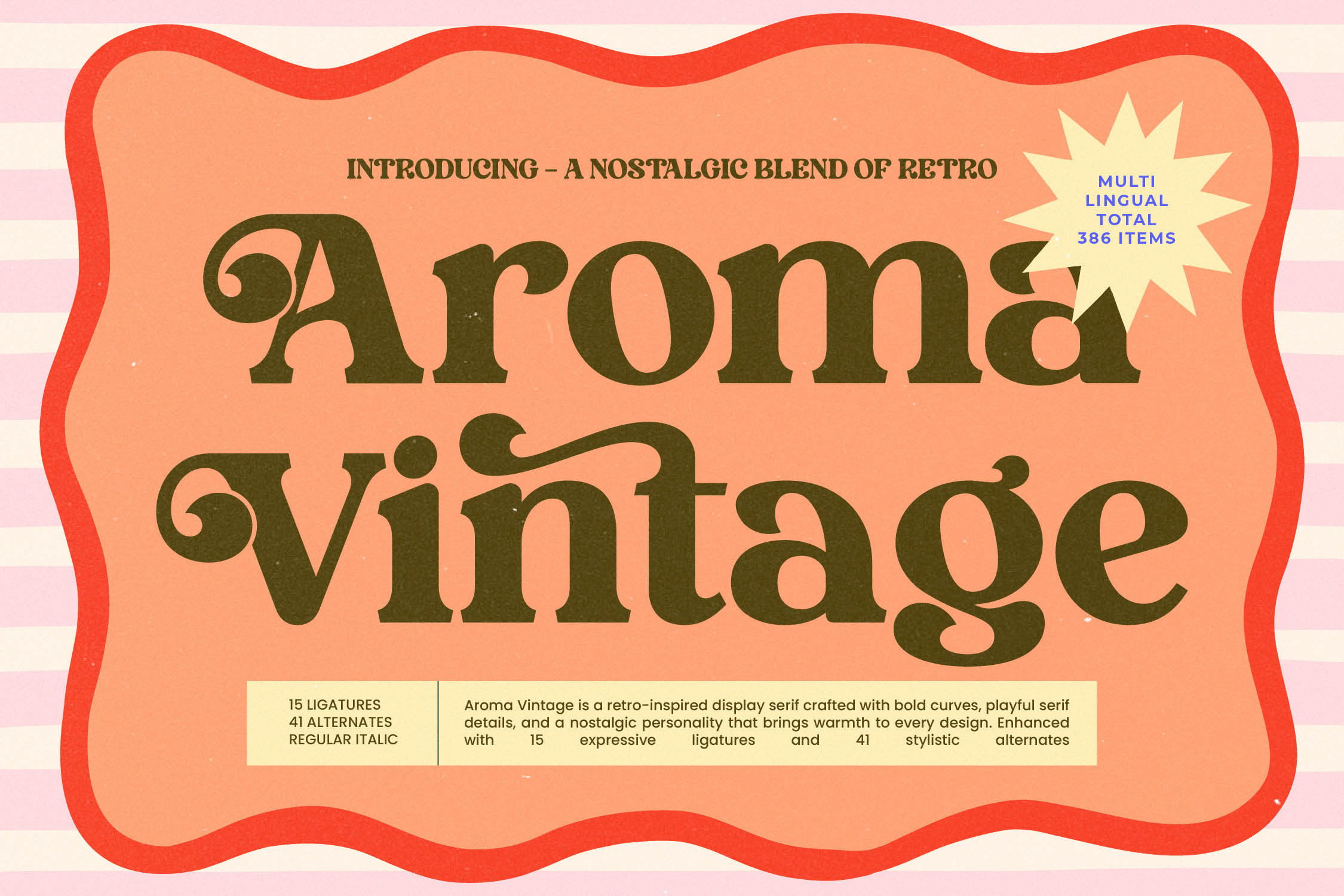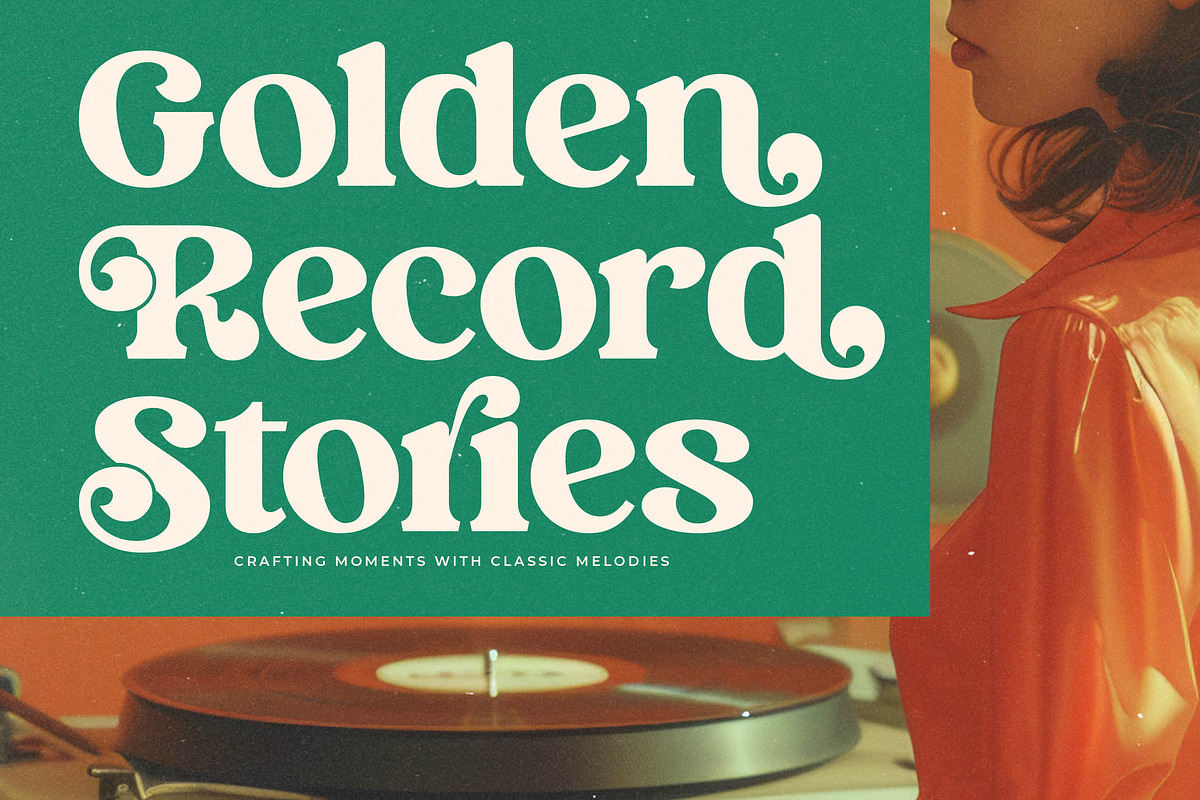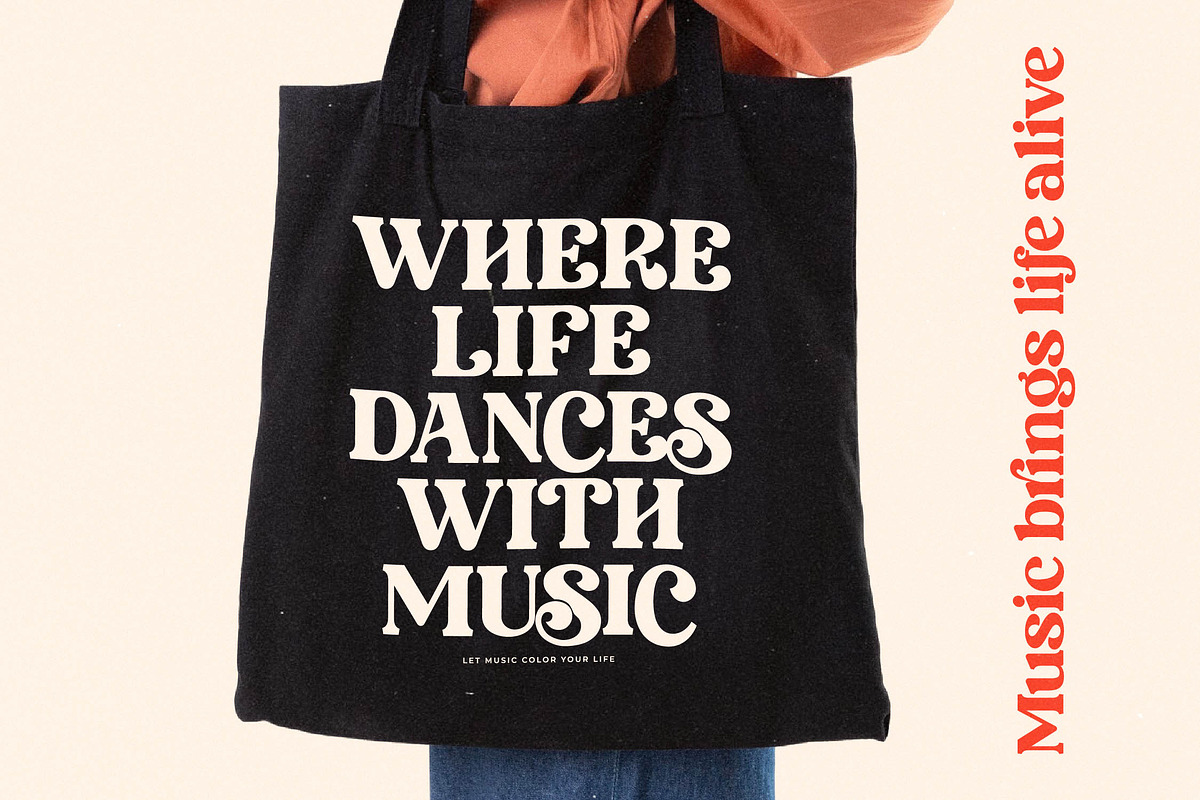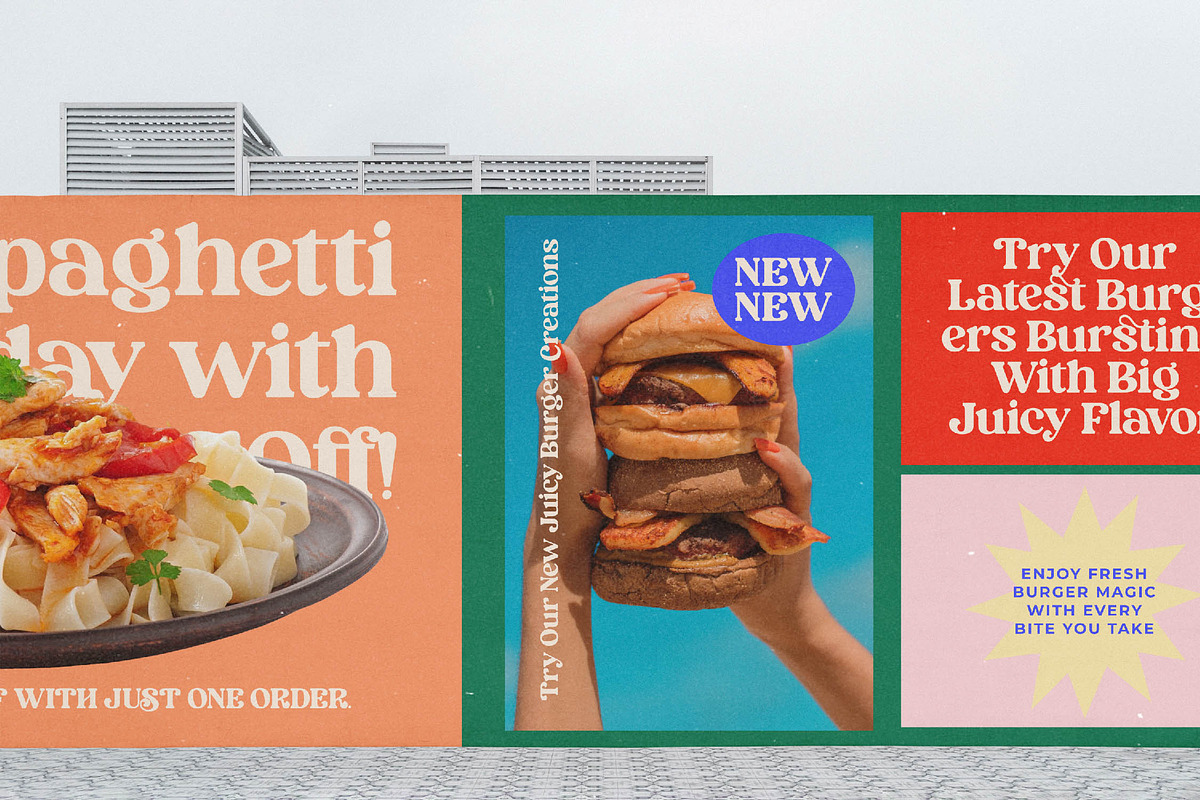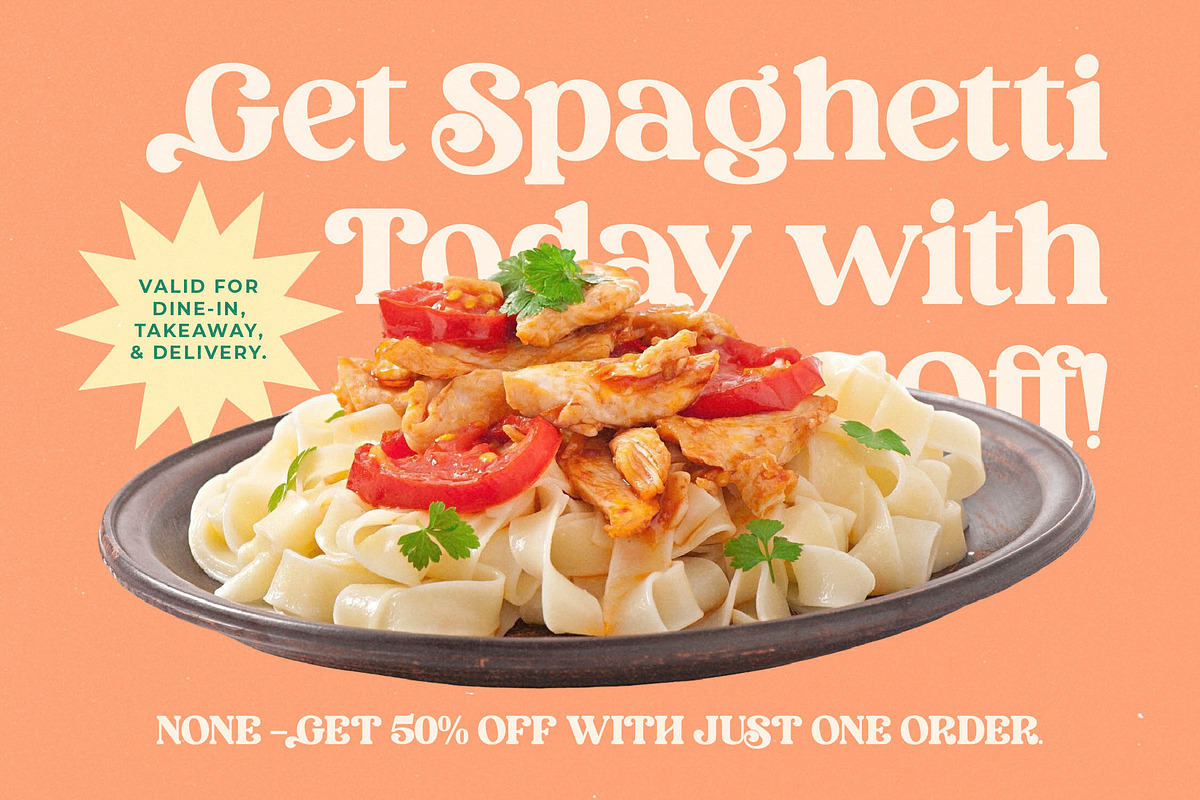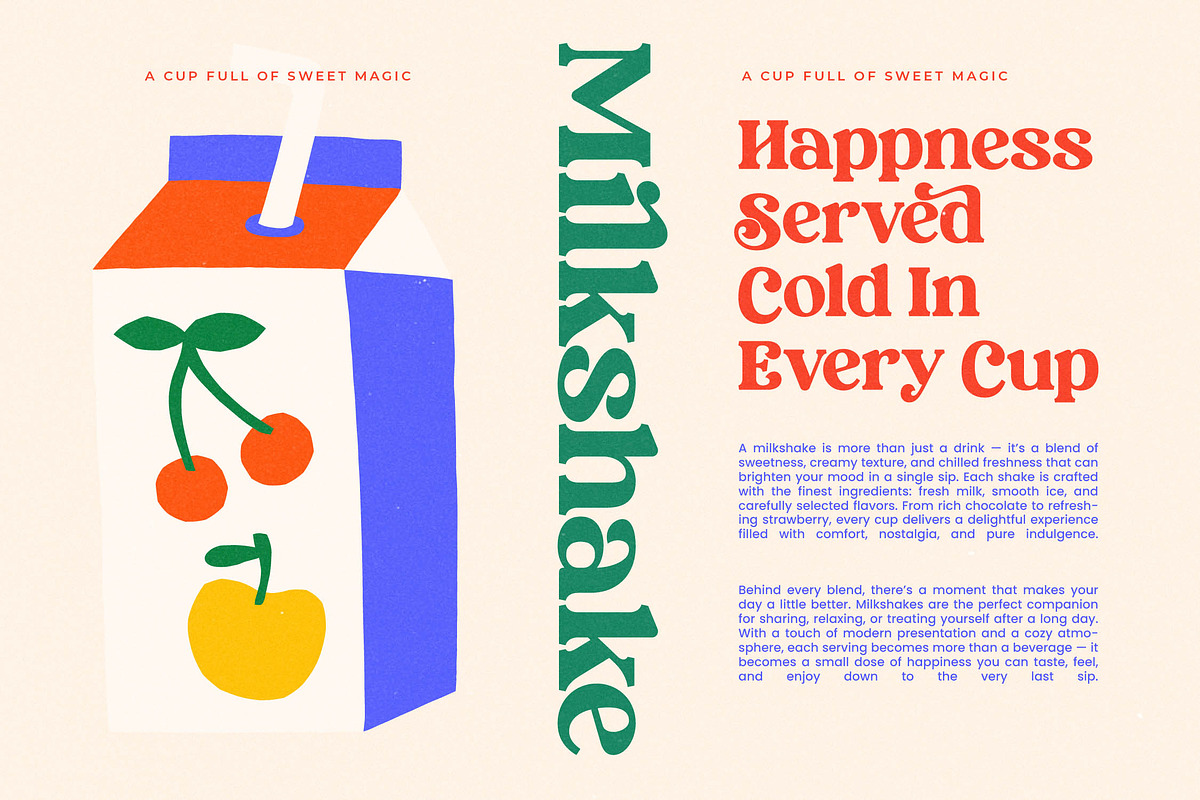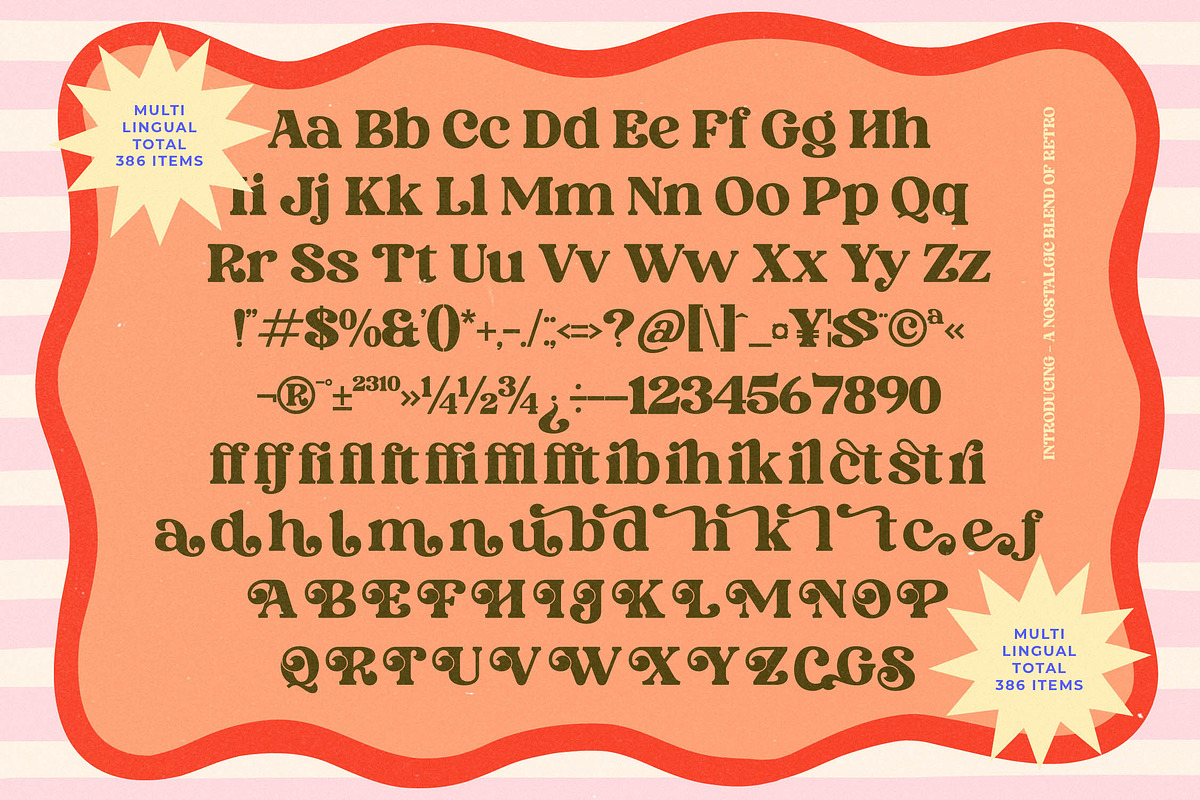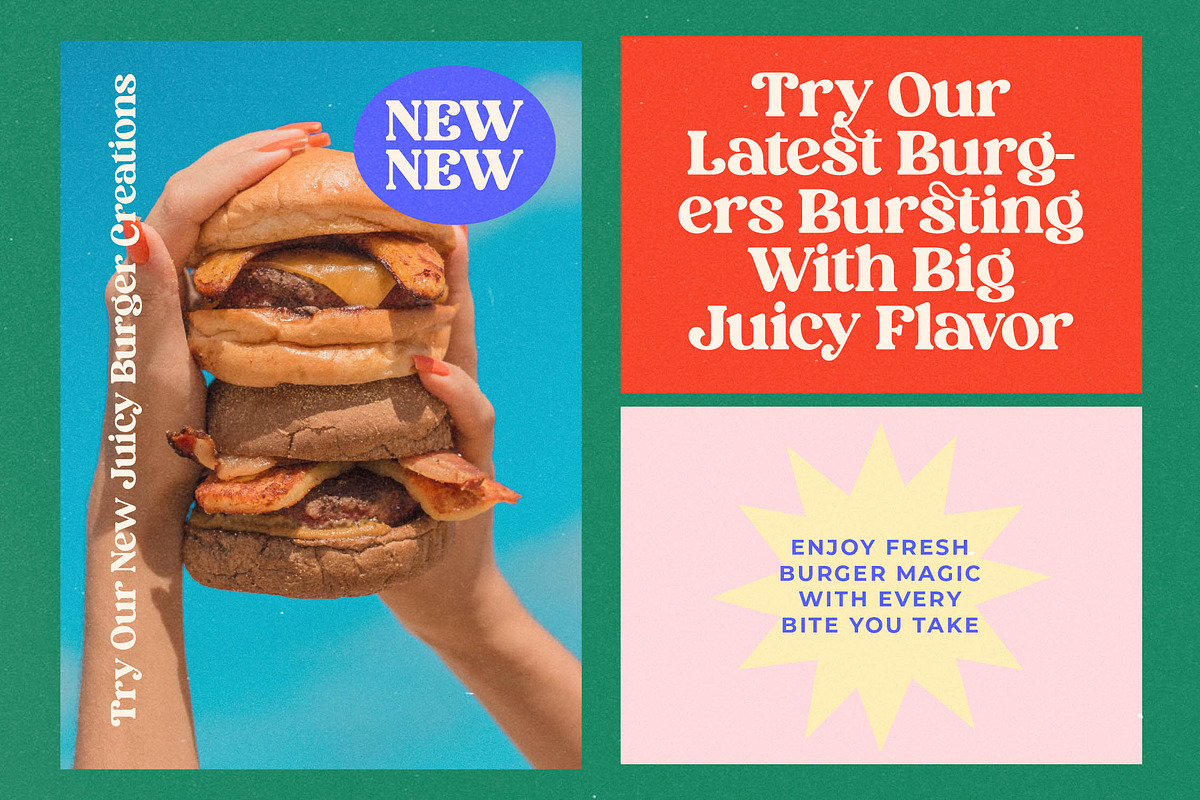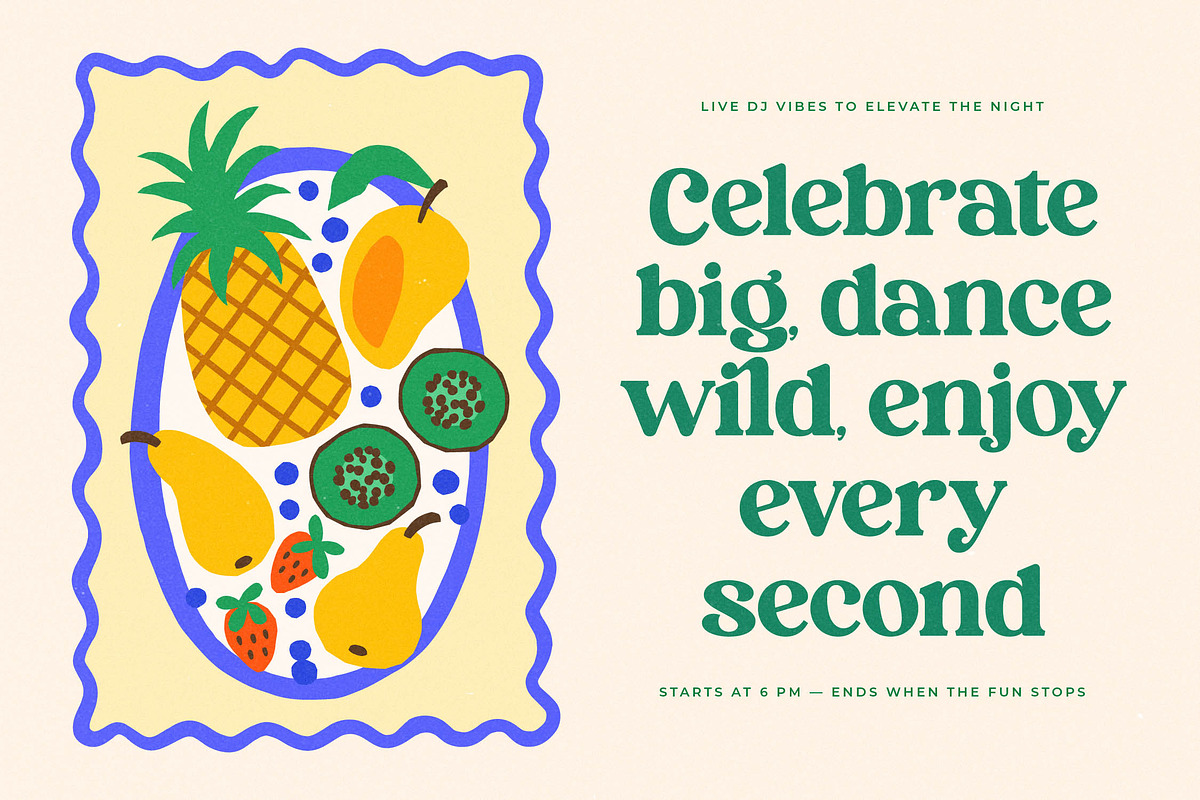
Aroma Vintage - Retro Serif Font
Step into a world of timeless charm with Aroma Vintage, a font that captures the essence of nostalgic design with effortless grace. It is more than just a typeface; it is a visual journey back to the golden era of bold, soulful aesthetics.
Inspired by the groovier side of the 1970s and the tactile warmth of vintage shop signage, this font reflects a curated blend of organic flow and structured elegance. Every curve is designed to evoke the cozy familiarity of a sun-drenched afternoon and a heritage feel.
With its modern serif display and luxury typography, this font offers a high-contrast serif look that is perfect for any project requiring a strong editorial font presence and significant branding impact.
Tapping into the current modern serif trend, this typeface aligns perfectly with the rise of editorial display fonts and character-driven typography seen in top-tier design magazines and sophisticated social media aesthetics.
Whether you are working on a high-end logo design, a comprehensive branding suite, or sophisticated editorial layouts, this font excels in packaging, wedding invitations, and fashion marketing.
This comprehensive package includes expressive ligatures, unique alternates, and decorative swashes to enhance your creative output. It also offers full multilingual support and a wide range of international characters for global versatility.
Ligatures and Alternative Style Stylistic Set